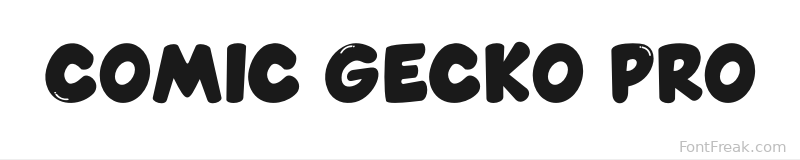
Comic Gecko Pro
About Comic Gecko Pro
Comic Gecko Pro by MaknaStudio is a delightful display font that captures the playful essence of comic artistry. Released in 2021, this freeware typeface is characterized by its bold, rounded letterforms that exude a sense of whimsy and friendliness. The strokes are thick and uniform, providing a strong visual presence while maintaining excellent legibility. The rounded edges give the font a softer, more inviting appearance, making it ideal for creative projects that require a touch of fun and personality.
The Comic Gecko Pro font is particularly well-suited for a variety of specific use cases. It shines in children's book illustrations, where its playful design can engage young readers. Additionally, it is perfect for graphic novels and comic strips, where the font's lively nature complements the narrative style. Restaurant menus can also benefit from its casual yet bold aesthetic, enticing diners with a friendly menu design. Furthermore, it can be effectively used in promotional materials for events like birthday parties or community fairs, where a cheerful vibe is essential.
The target audience for Comic Gecko Pro includes graphic designers looking for unique typefaces to enhance their projects, small business owners aiming for an approachable brand image, and content creators needing engaging visuals for their online platforms.
What sets Comic Gecko Pro apart is its ability to combine fun with functionality. This font not only grabs attention but also maintains clarity and readability, making it a versatile choice for a range of applications. With its unique style and inviting design, Comic Gecko Pro font free download is a fantastic addition to any designer's toolkit, ensuring that your creative projects come to life with flair and character.